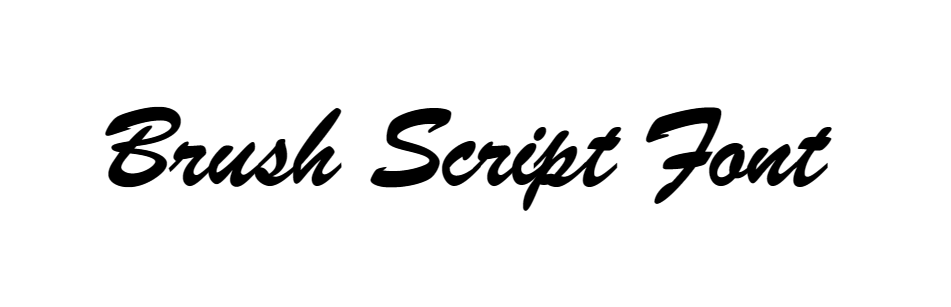
Brush Script Font
Brush Script
Brush Script is a script font designed by Castcraft Software, Inc. The letters have the smooth movement of real pen lettering, which is why even a single name looks special in it. You can download it for free and test it with your own words in the preview above.
What You Can Type With Brush Script
With complete upper and lowercase letters and all ten digits, Brush Script is ready for real wording, not just a single headline. Common punctuation such as &, !, ? and @ is included as well. It also has the accented letters you need for Spanish, French, German, Portuguese and Italian.
Where Brush Script Works Best
Think of Brush Script for wedding invitations, logos and signature-style headings. Script fonts read best in short bursts, so keep it to names, titles and one-line quotes. Skip all caps: script capitals are drawn to start a word, not to fill one.
Does Brush Script support accented letters?
Yes. Brush Script includes the accented letters needed for Spanish, French, German, Portuguese and Italian, so it works for more than just English.